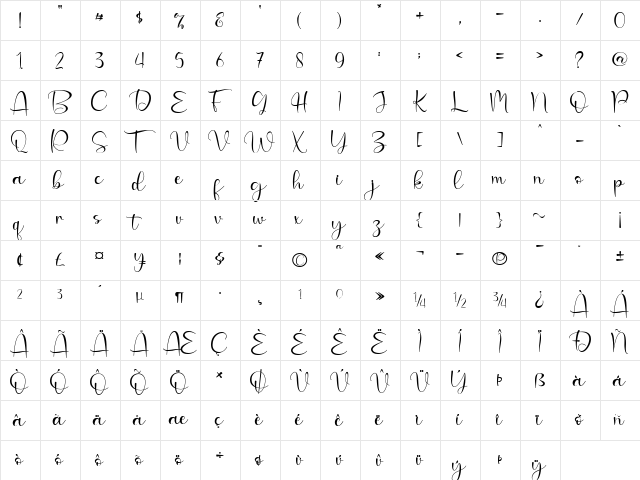
blacklovepink - personal use Regular
| Designer | Stefani Letter |
Design Context for blacklovepink - personal use Typeface
blacklovepink - personal use is a composed and adaptable typeface that performs quietly and consistently across a wide range of design contexts.